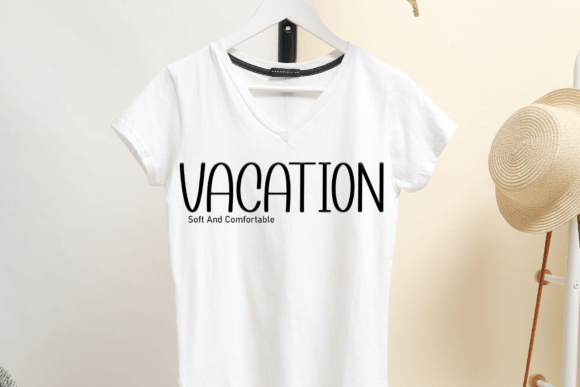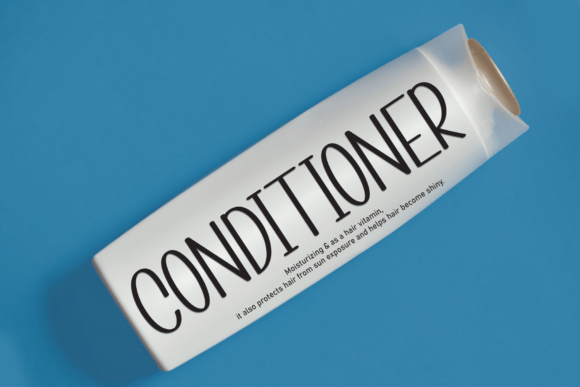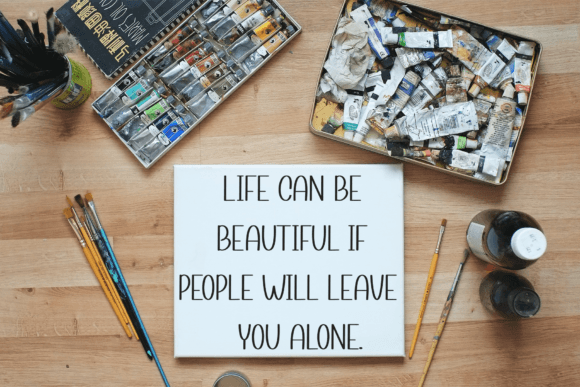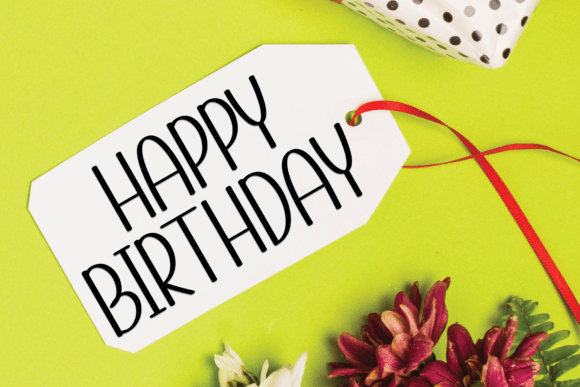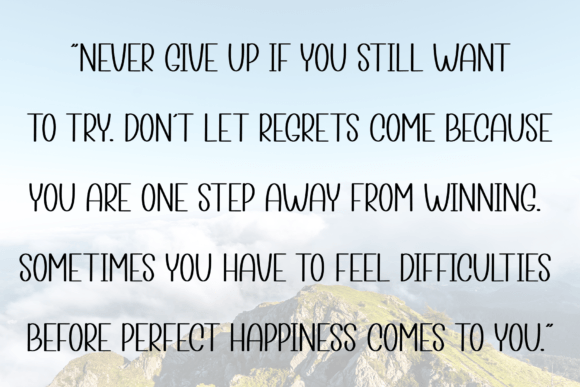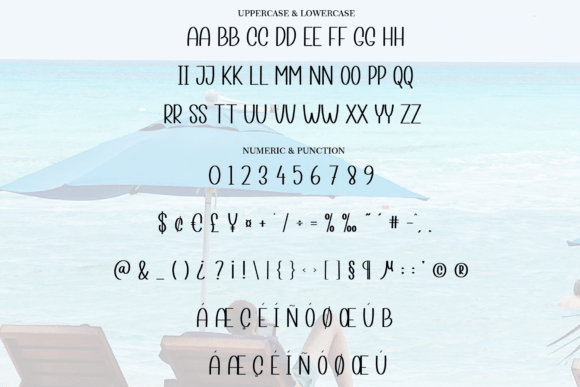
Introduction to Hello Sunday Font
Have you ever found yourself in a creative rut, staring at a blank canvas or a blank piece of paper, waiting for inspiration to strike? That’s exactly where I was when I stumbled upon the Hello Sunday Font. As a designer, I’m always on the lookout for unique and high-quality design resources that can elevate my creative projects. And let me tell you, this font did just that.
With its sweet and friendly handwritten style, the Hello Sunday Font is perfect for adding a personal touch to your designs. Whether you’re creating wedding invitations, cards, or any other project that requires a lovely and casual feel, this font is sure to deliver. And the best part? It’s available as a free download, complete with a transparent background, making it easy to incorporate into your design.
Key Features of Hello Sunday Font
- High-quality, professional design ideal for creative projects and presentations
- Unique, modern design with a friendly and approachable feel, making it perfect for branding and marketing materials
- Easy to use and customize, with a clear and legible typography that’s perfect for digital and print projects
Honest Review: Hello Sunday Font
I recently had the chance to dive into the Hello Sunday Font, and I must say it’s been a game-changer for my design projects. This high-quality font is a fantastic addition to any design resource library, and its versatility makes it perfect for a wide range of creative projects.
What works well: ✨ I appreciate the variety of font styles available, from elegant and modern to bold and playful. The transparent background option allows for seamless integration into any design, and the free download makes it accessible to designers of all levels.
- High-quality font options for various design needs
However, there are a few limitations: ⚠️ The font doesn’t come in as many languages as I’d like, which can be a problem for international design projects. Additionally, the font size options are limited, which can make it tricky to find the perfect fit for certain design elements.
Overall, I’m thoroughly impressed with the Hello Sunday Font. It’s a fantastic addition to any design library, and its ease of use and high-quality options make it a must-have for any designer. With a few tweaks to address the limitations, this font could be truly unbeatable.
The Hello Sunday Font is a high-quality design resource that offers a unique and creative way to add style to your projects. With its transparent background, this font is perfect for designers and creatives looking for a versatile and easy-to-use design element.
To get the most out of the Hello Sunday Font, try combining it with other design elements, such as graphics and images. You can also experiment with different font sizes and styles to create a unique and eye-catching design.
Common Use Cases for Hello Sunday Font
The Hello Sunday Font is perfect for a variety of creative projects, including social media graphics, blog posts, and marketing materials. Its high-quality design and transparent background make it an ideal choice for designers and creatives looking to add a professional touch to their work.